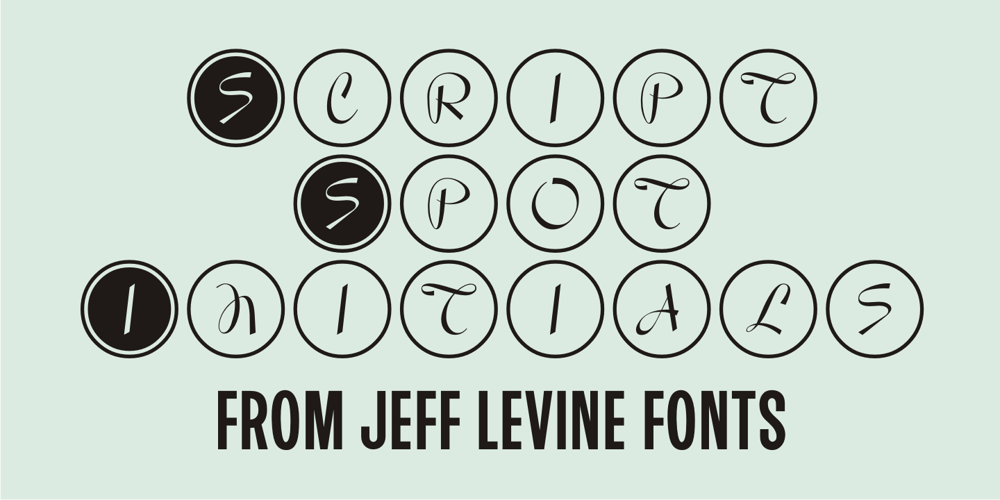
Script Spot Initials JNL Font Family was designed by Jeff Levine and published by Jeff Levine. Script Spot Initials JNL contains 1 styles and family package options. Amidst the pages of the 1946 foreign-printed “100 Alphabets Publicitaires” (“100 Advertising Alphabets”) was an example of a beautiful vertical script type design with a somewhat calligraphic look. This became the work model for Script Spot Initials JNL.